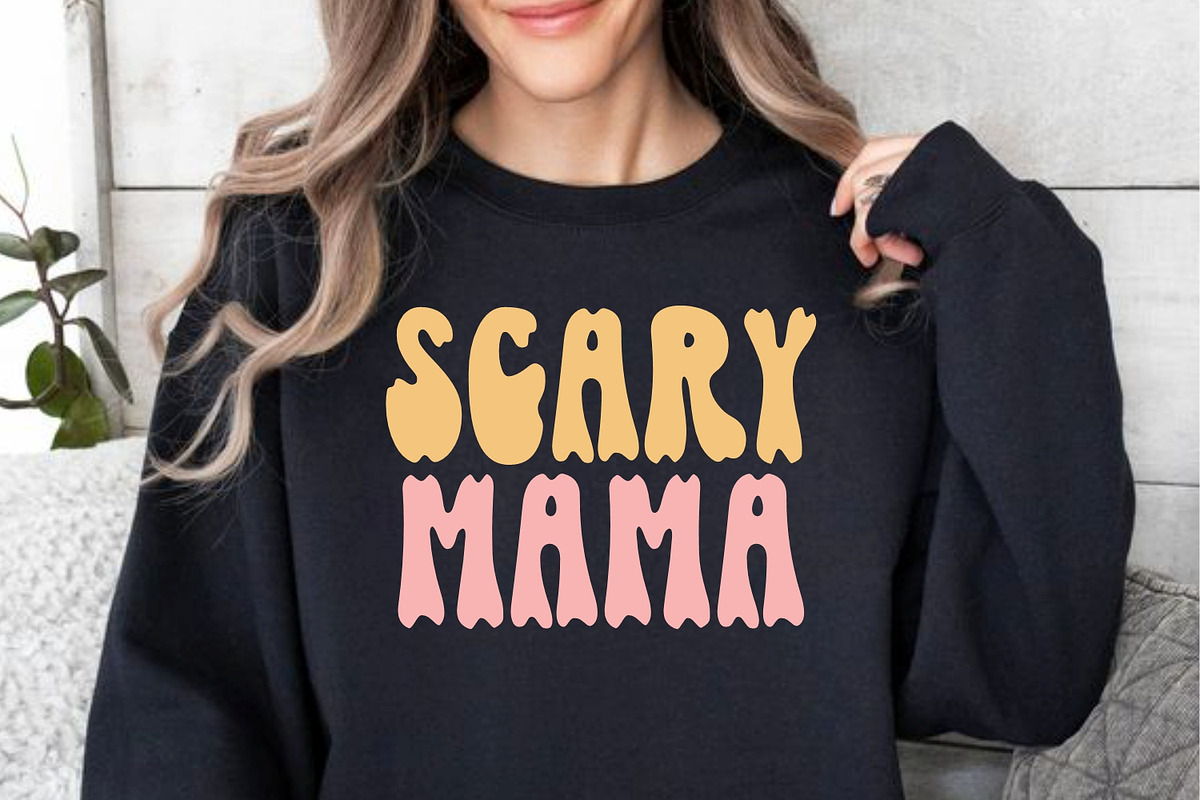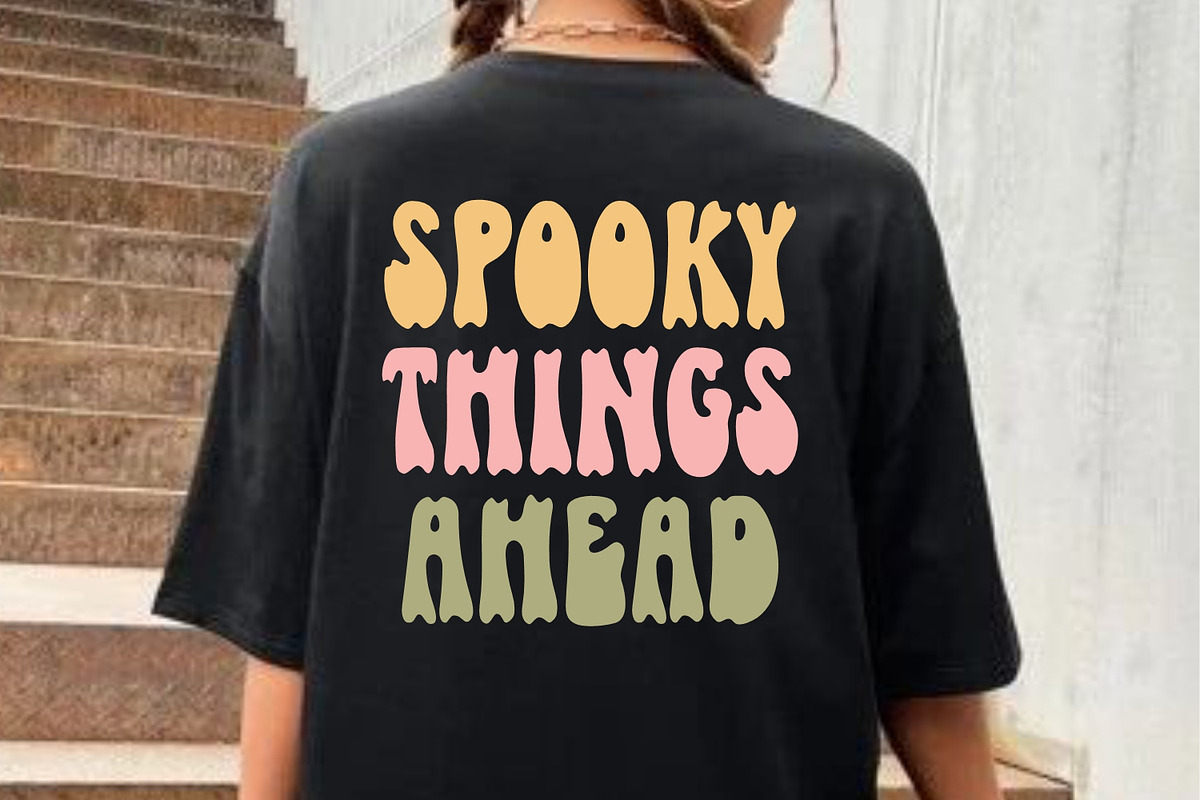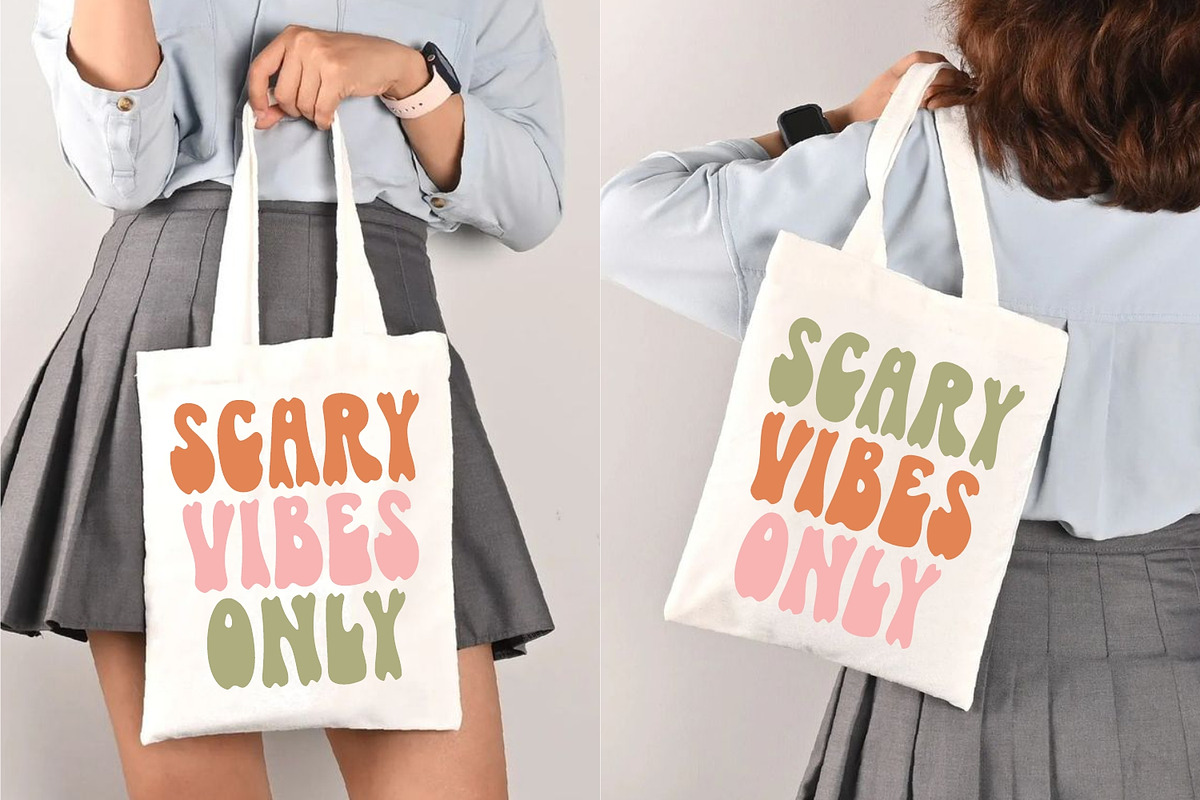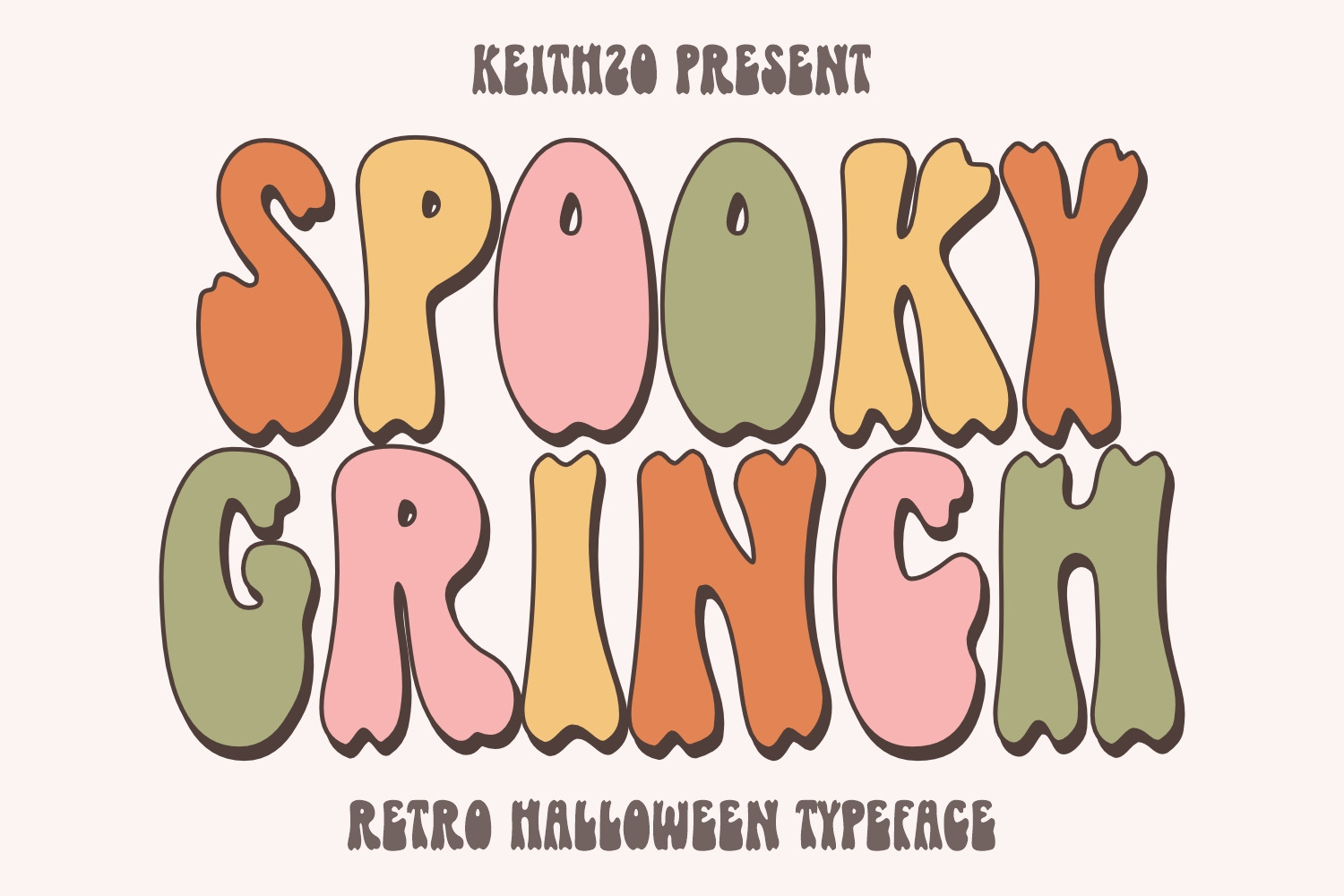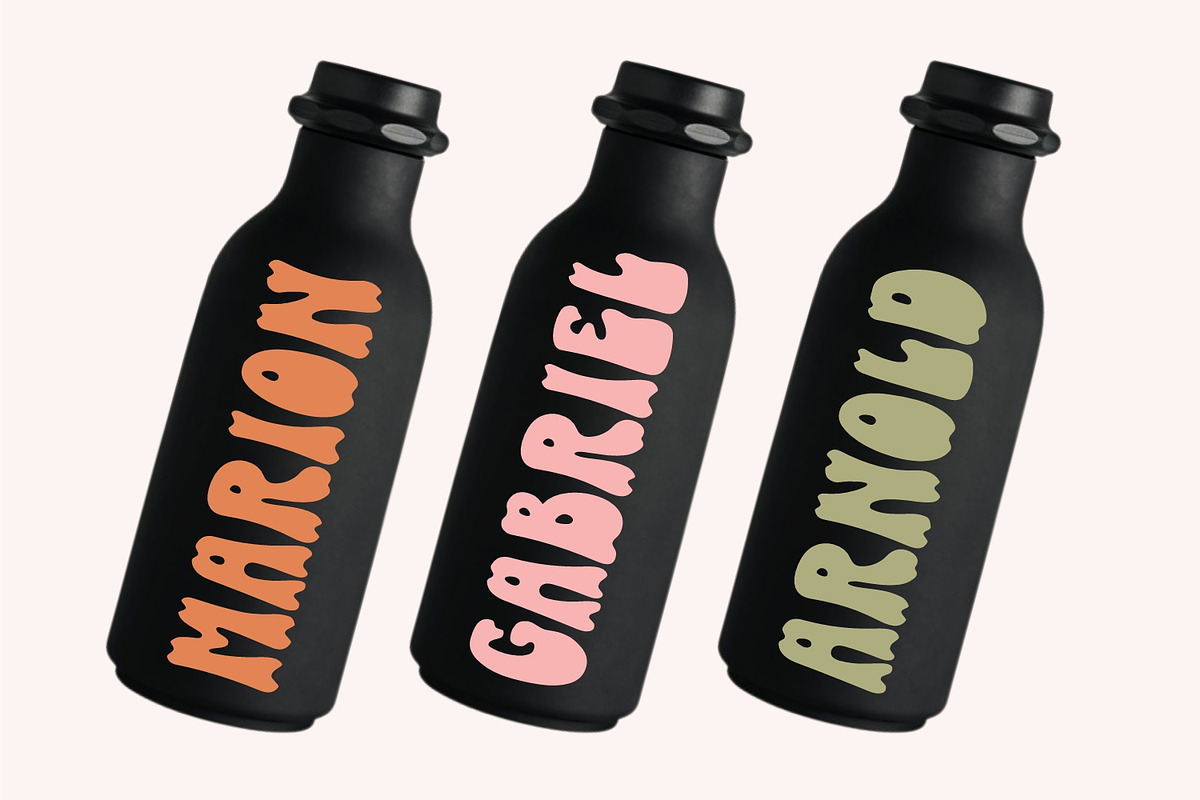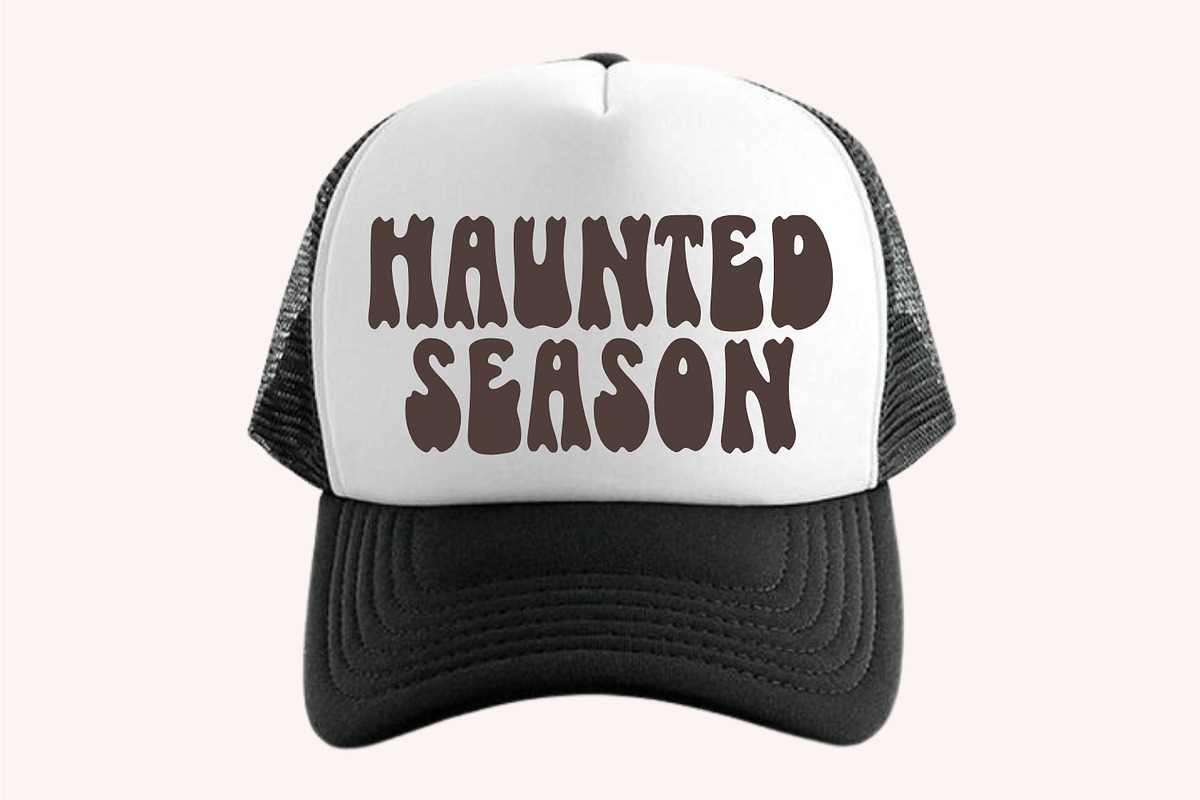
Spooky Grinch - Halloween Font
Spooky Grinch captures the essence of Halloween in a font extrapolated from both retro and groovy design aesthetics. Its subtly eerie undertones aptly signal the arrival of the spooky season. This uniquely vintage-style font can bring a dash of opulence to an assortment of creations — from custom t-shirts and tote bags to magnificent tumblrs and chic hats. Additionally, it can enhance the charm of logos, boost your brand charisma and add a special touch to Halloween greeting cards. Define your social media presence or accessorize other elements with this versatile design. Embrace the Halloween spirit in style with Spooky Grinch!